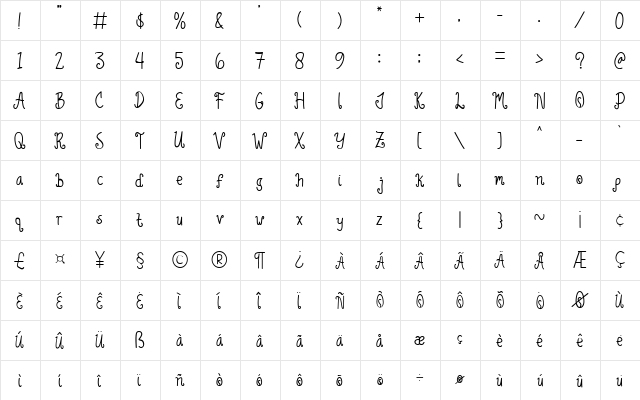
Green Lemonade Regular
Design Context for Green Lemonade Typeface
Green Lemonade is a composed and adaptable typeface that performs quietly and consistently across a wide range of design contexts.